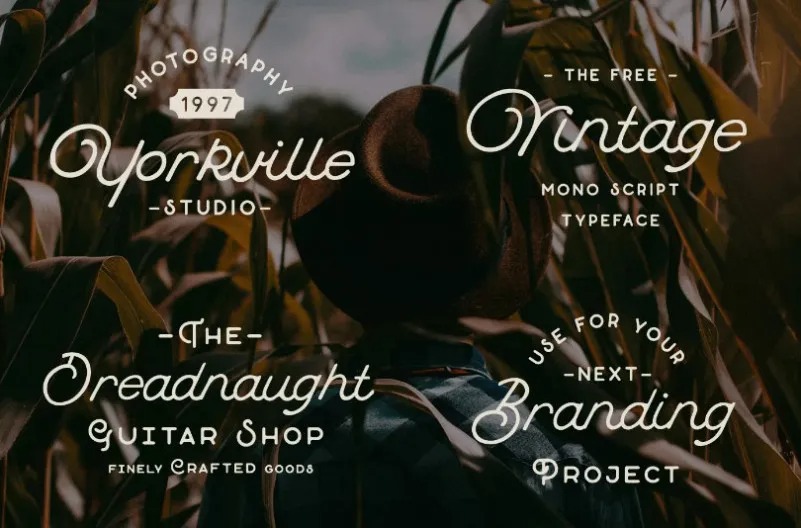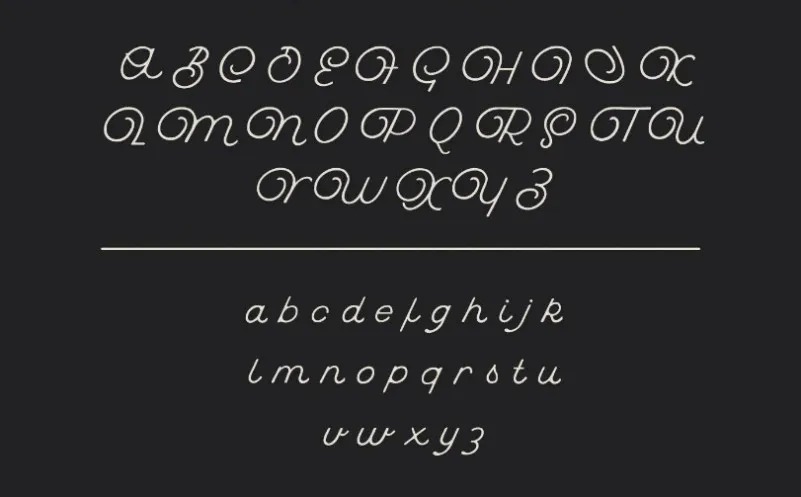
Introduction to Buffalo Script Font. A loopy & quirky monoline script font from Hustle Supply Co. This premium free font is vintage themed and perfect for branding and promotional projects!